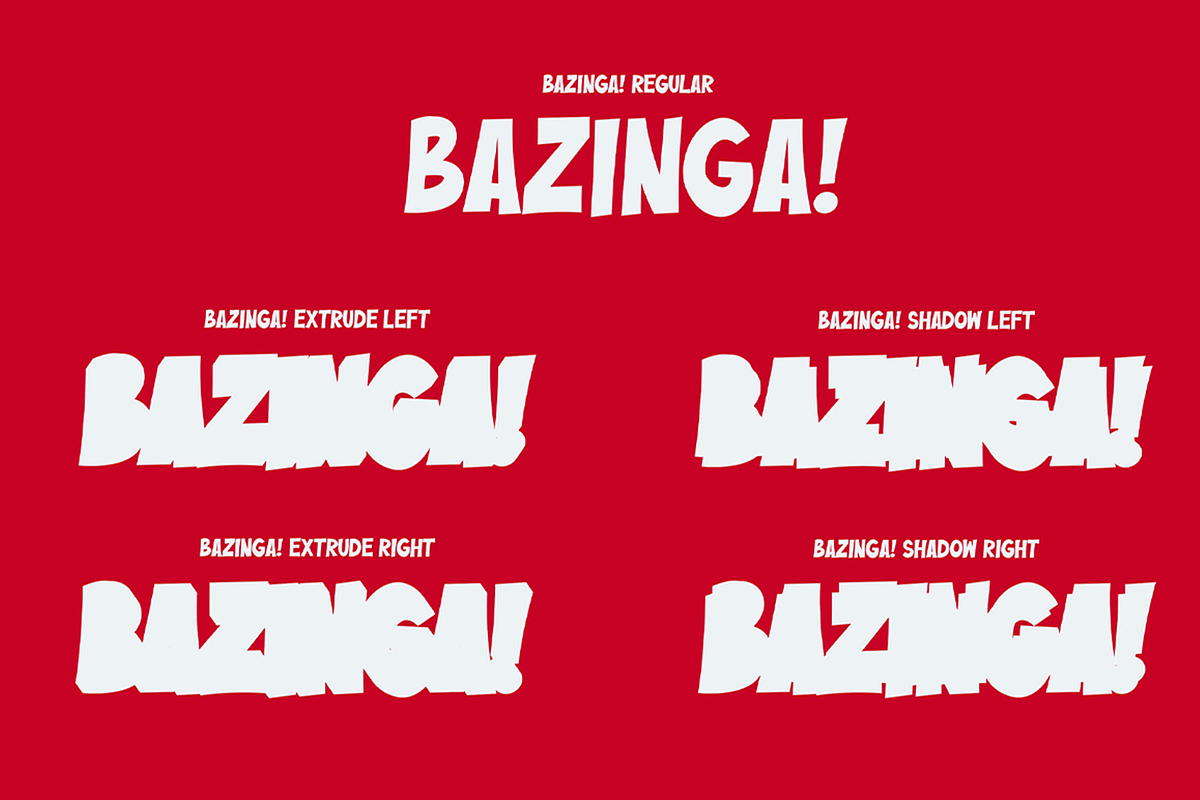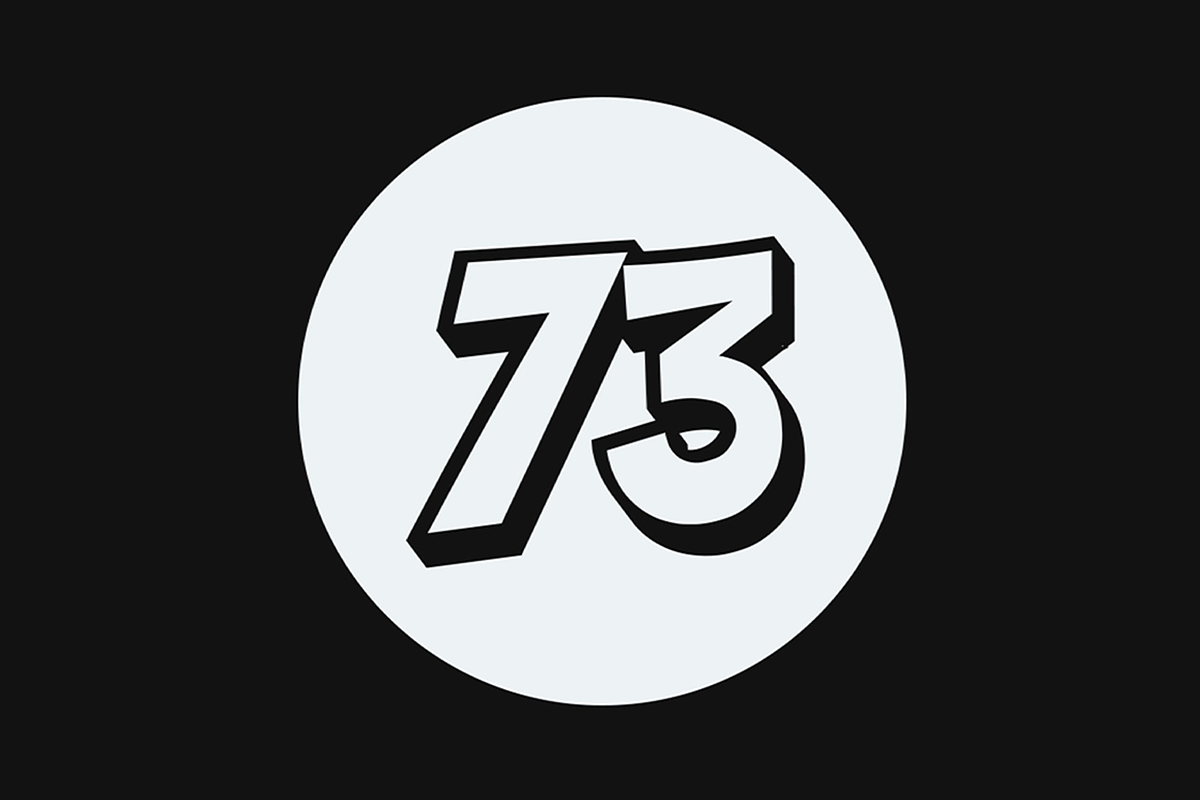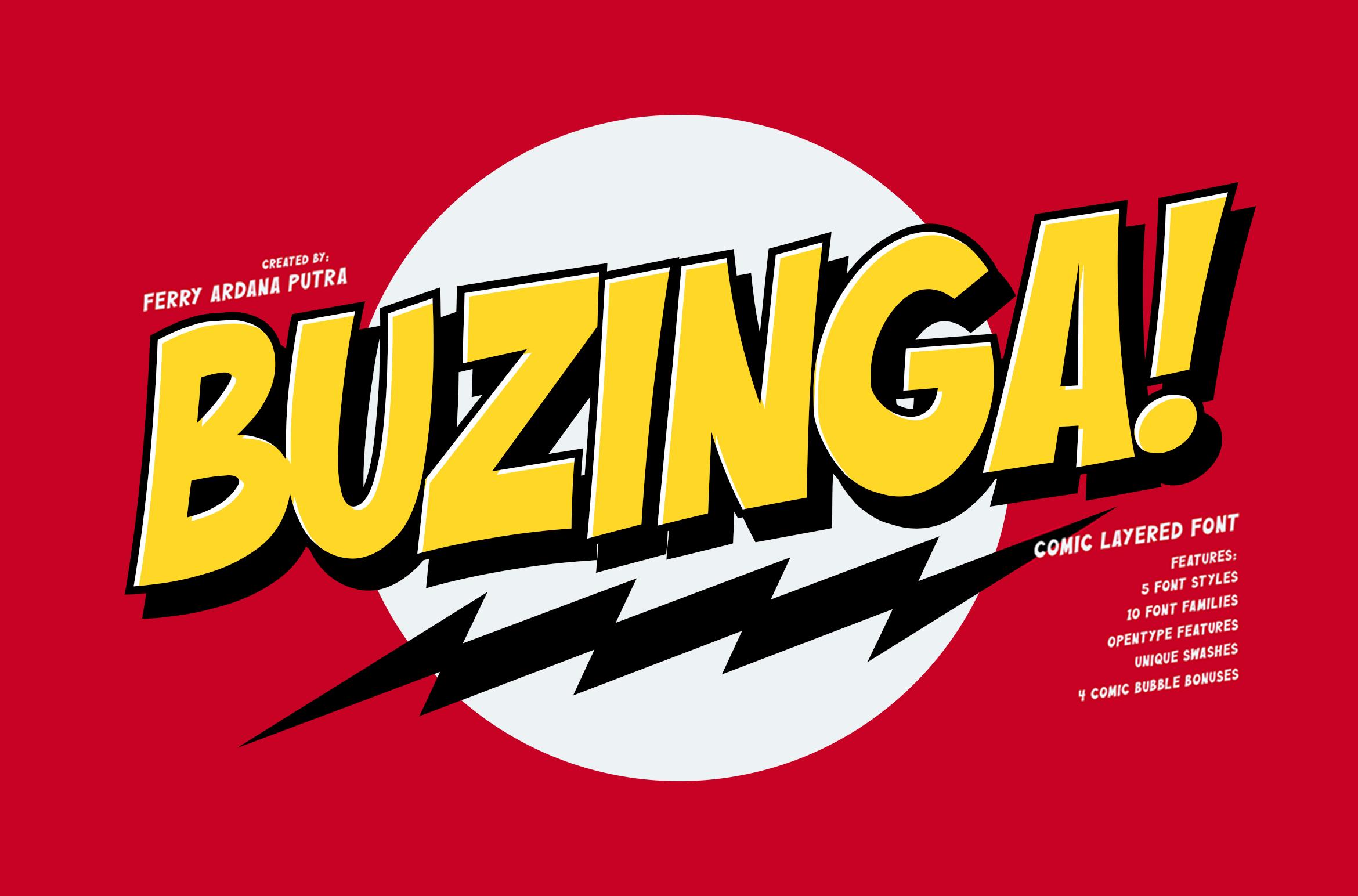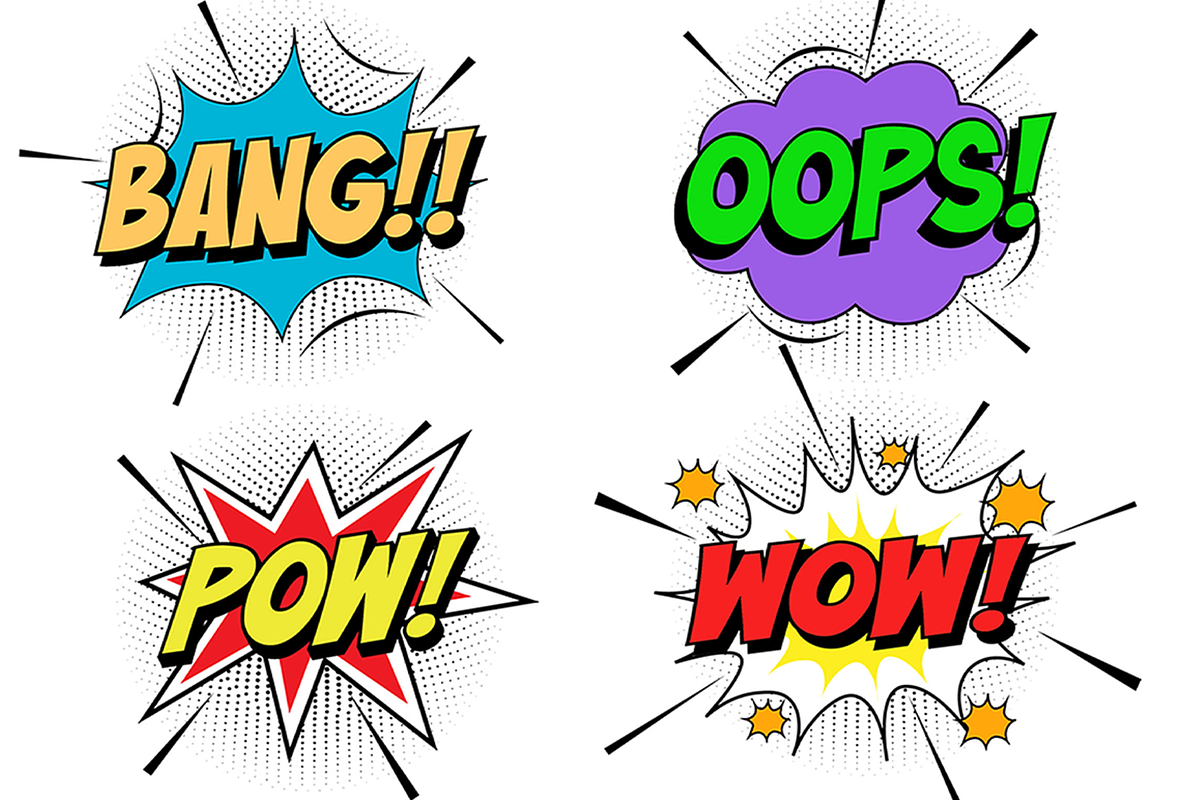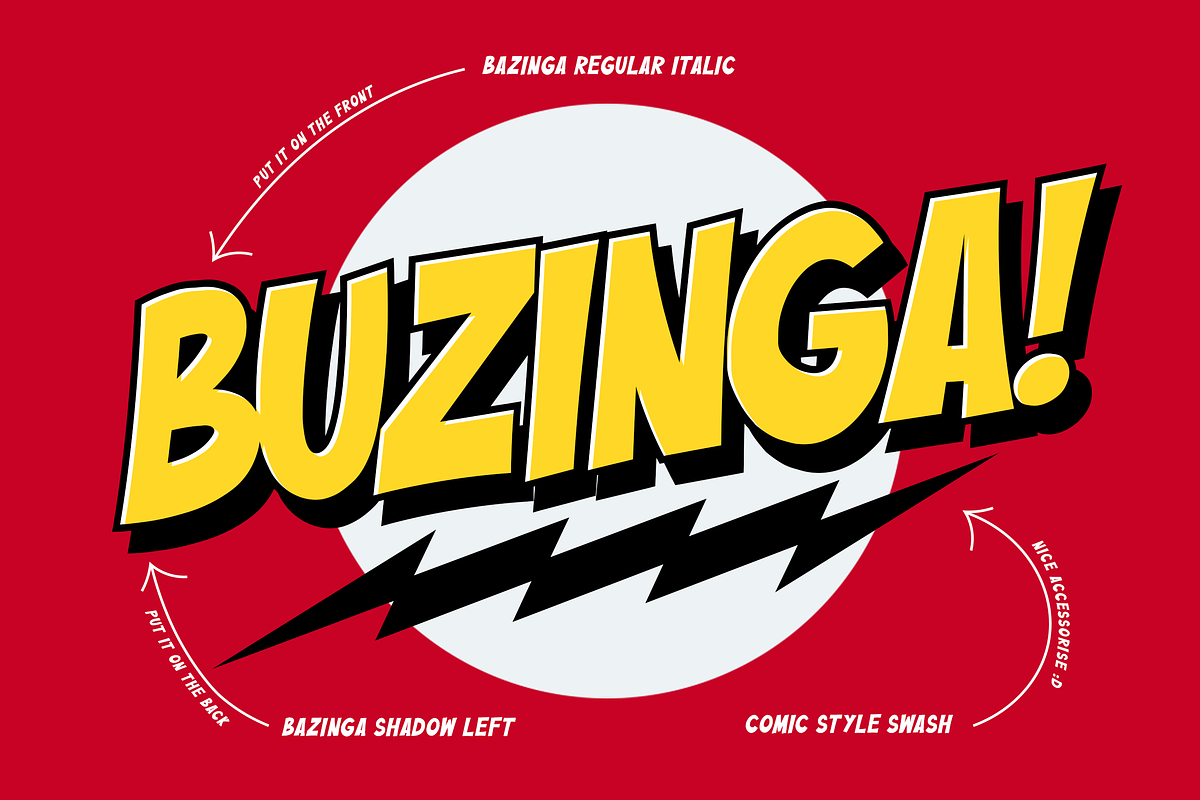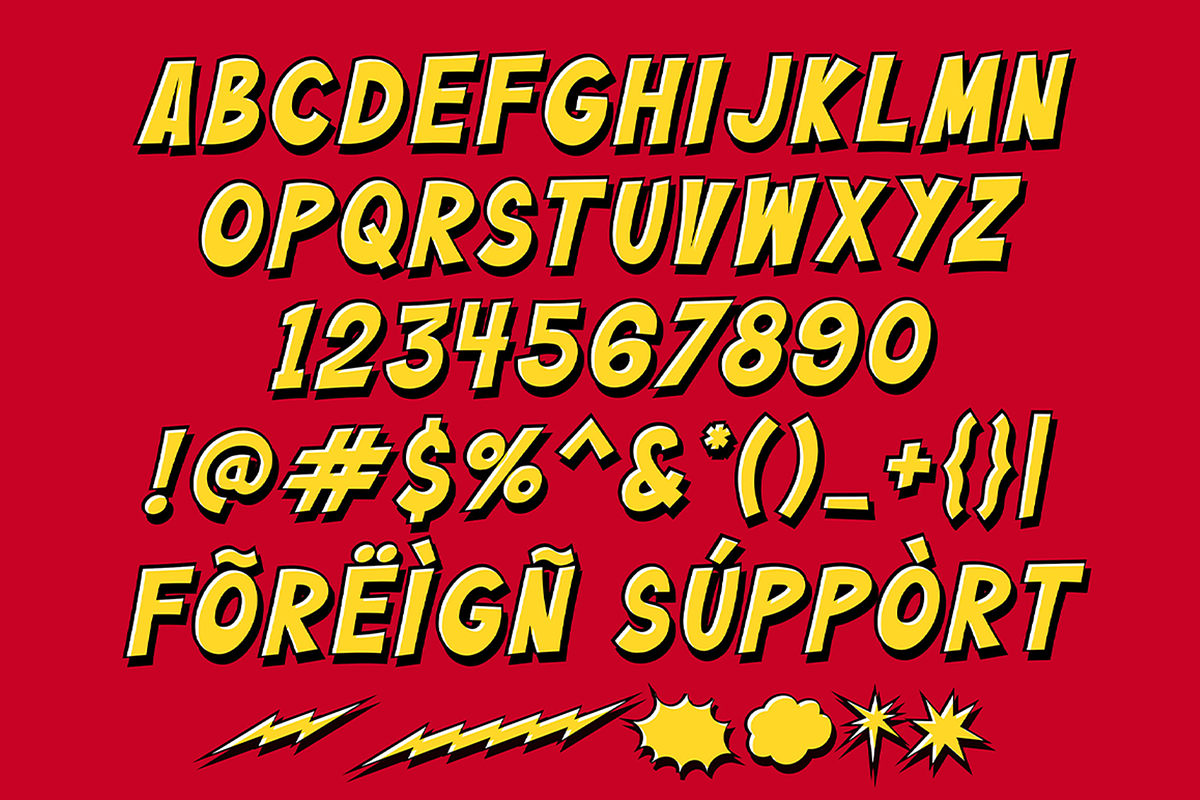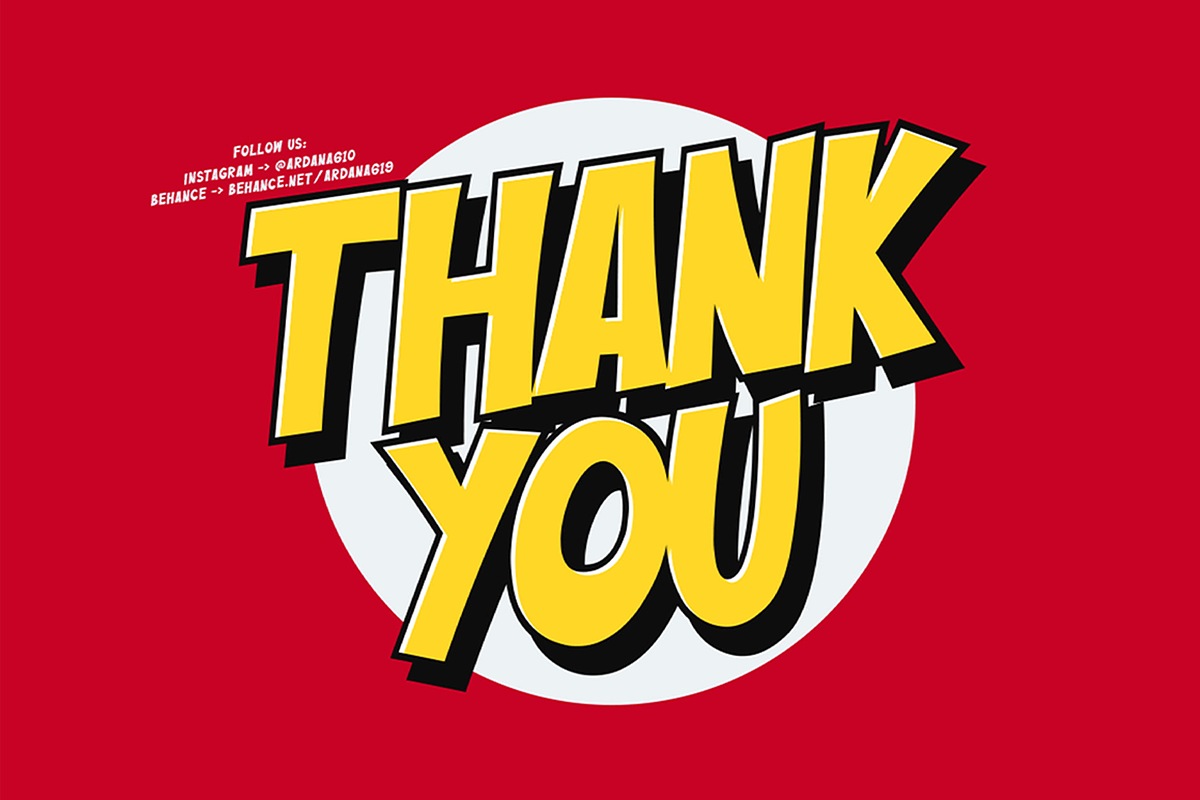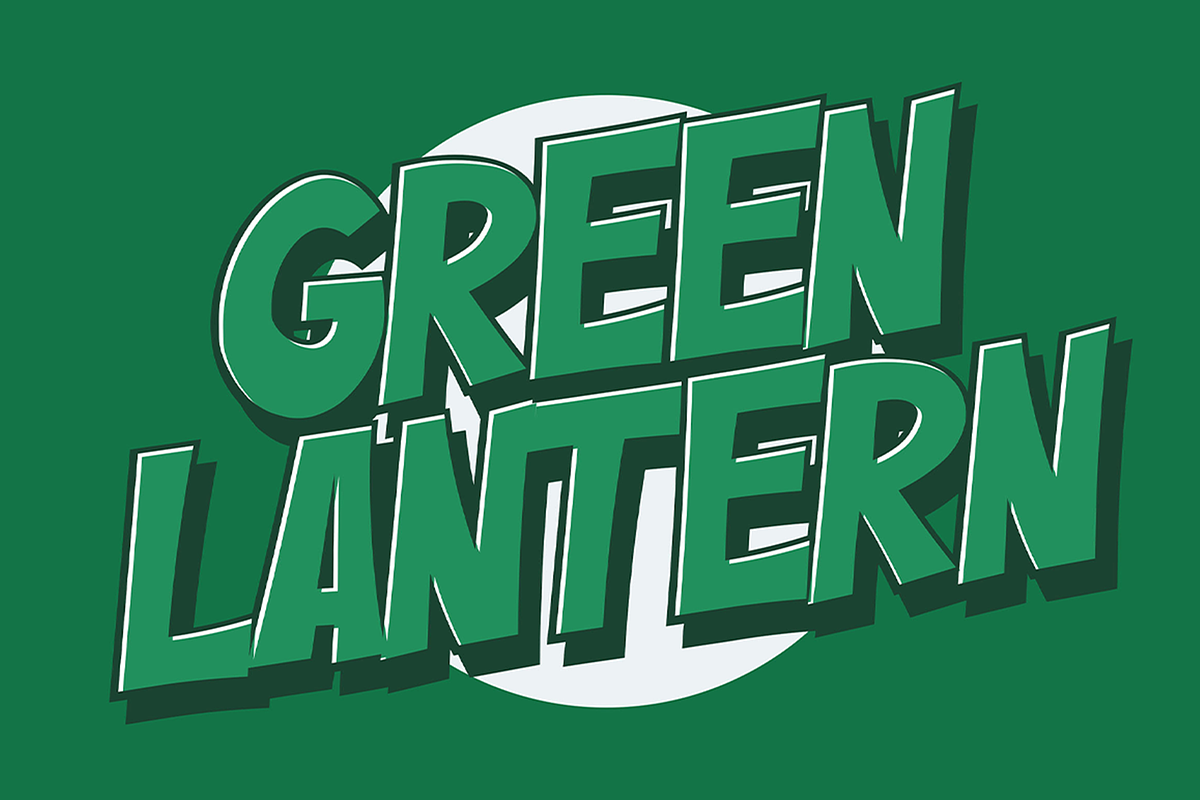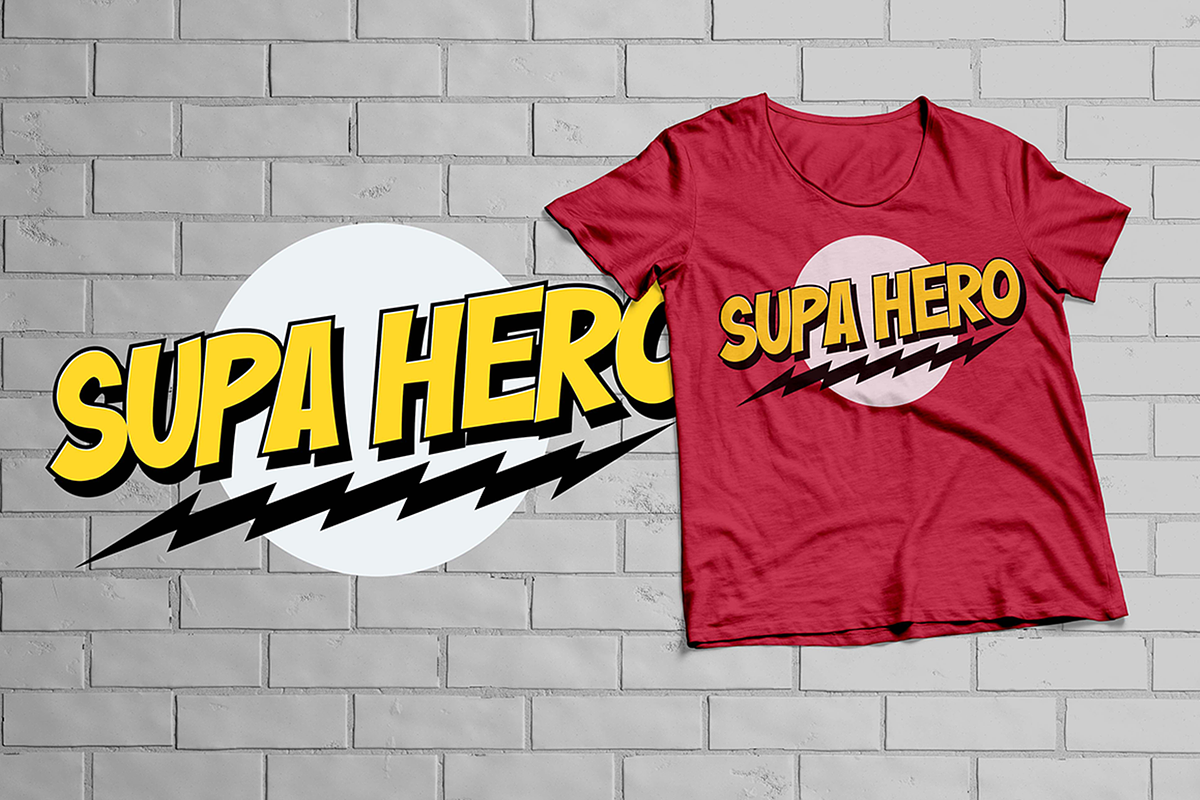
Buzinga! | Comic Layered Font
Buzinga! is a fabulous new layered comic book style font that is inspired by Sheldon's favorite jokes word - Buzinga! You can combine this font with any layered style included in this font family. This font is perfect for adding a comical feel to your designs, whether it is comical quotes, labels, logotype posters, t-shirts, and many more!
Buzinga! features:
A full set of uppercase characters
Multilingual language support
PUA Encoded Characters
275 Total glyphs
Layered Style